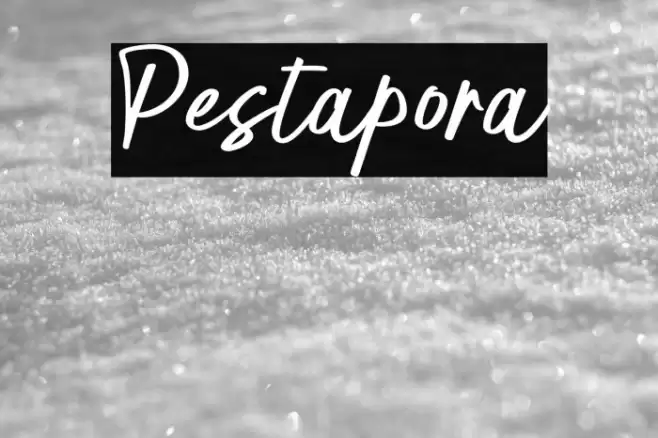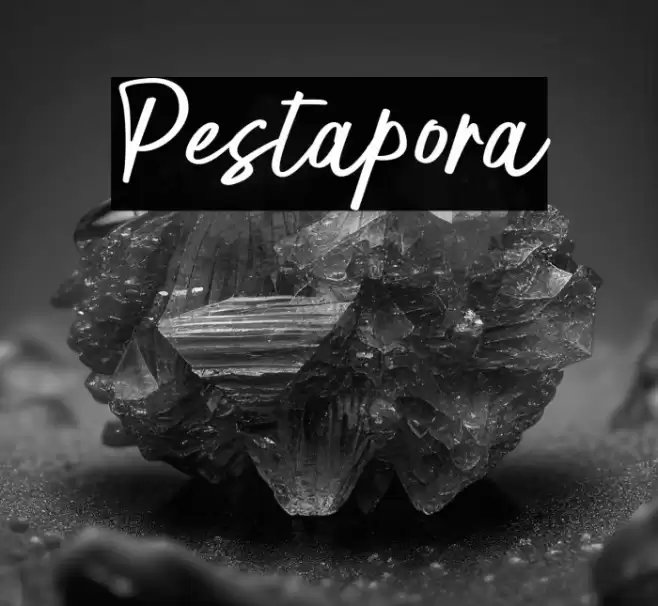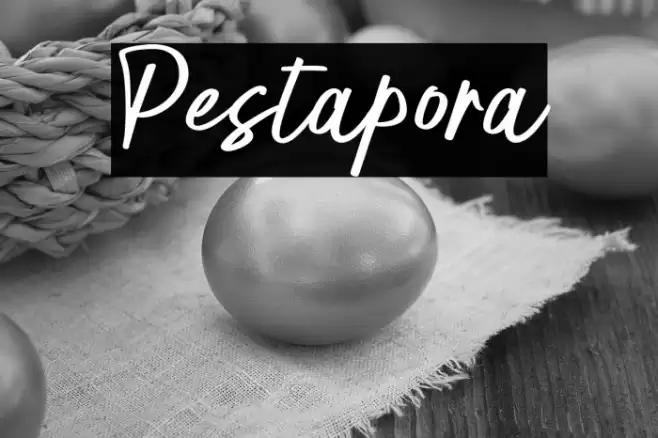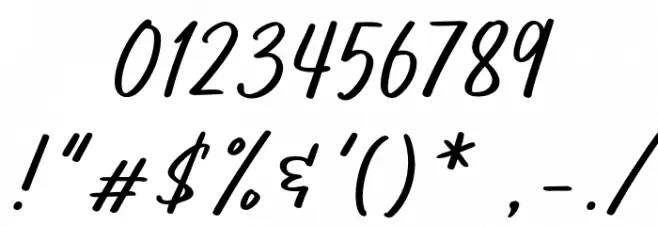
Pestapora Font
Pestapora Description
This font features a lively and dynamic script style, characterized by its fluid and connected letterforms. The strokes are smooth and slightly slanted, giving it a handwritten appearance that is both casual and elegant. The uppercase letters are bold and prominent, while the lowercase letters maintain a consistent flow, enhancing readability. Numbers and special characters are designed to match the overall script style, ensuring a cohesive look across all text. The font's playful yet sophisticated nature makes it suitable for a variety of creative projects.
A lively, handwritten script font with smooth, connected strokes from Regular fonts.
- Proposed Projects: Ideal for wedding invitations, greeting cards, branding projects, and social media graphics.
- Use Case: Logos, Invitations, Social Media